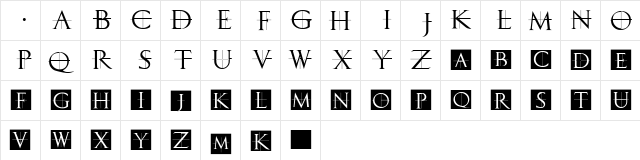
ClassicRomanCaps Regular
Design Context for ClassicRomanCaps Typeface
ClassicRomanCaps wears its vintage influences proudly, with letterforms that recall mid-century signage, classic packaging, and nostalgia-driven design.
Font Pairing: Combine ClassicRomanCaps with a simple slab or neutral sans — period-accurate companions reinforce the vintage feel without competing for attention.
Pro Tip: Lean into ClassicRomanCaps's period character by pairing it with aged paper textures, muted colour palettes, and vintage illustration styles.